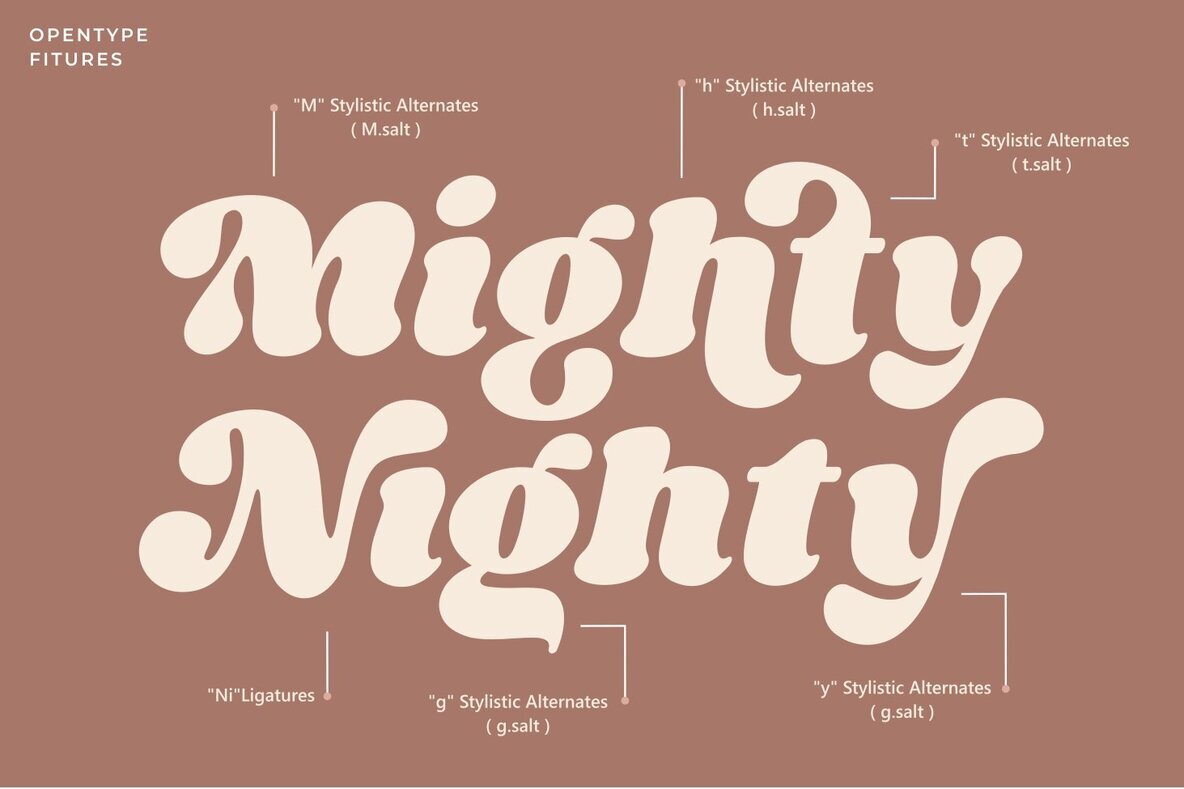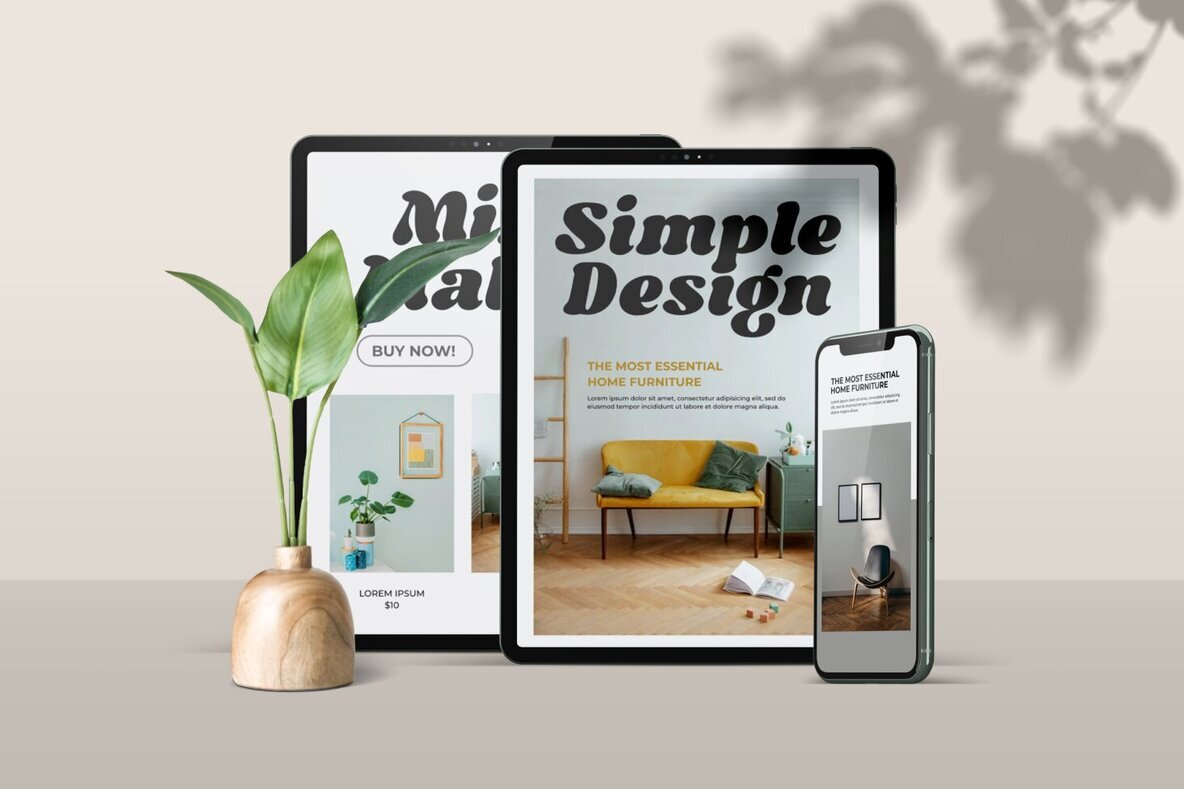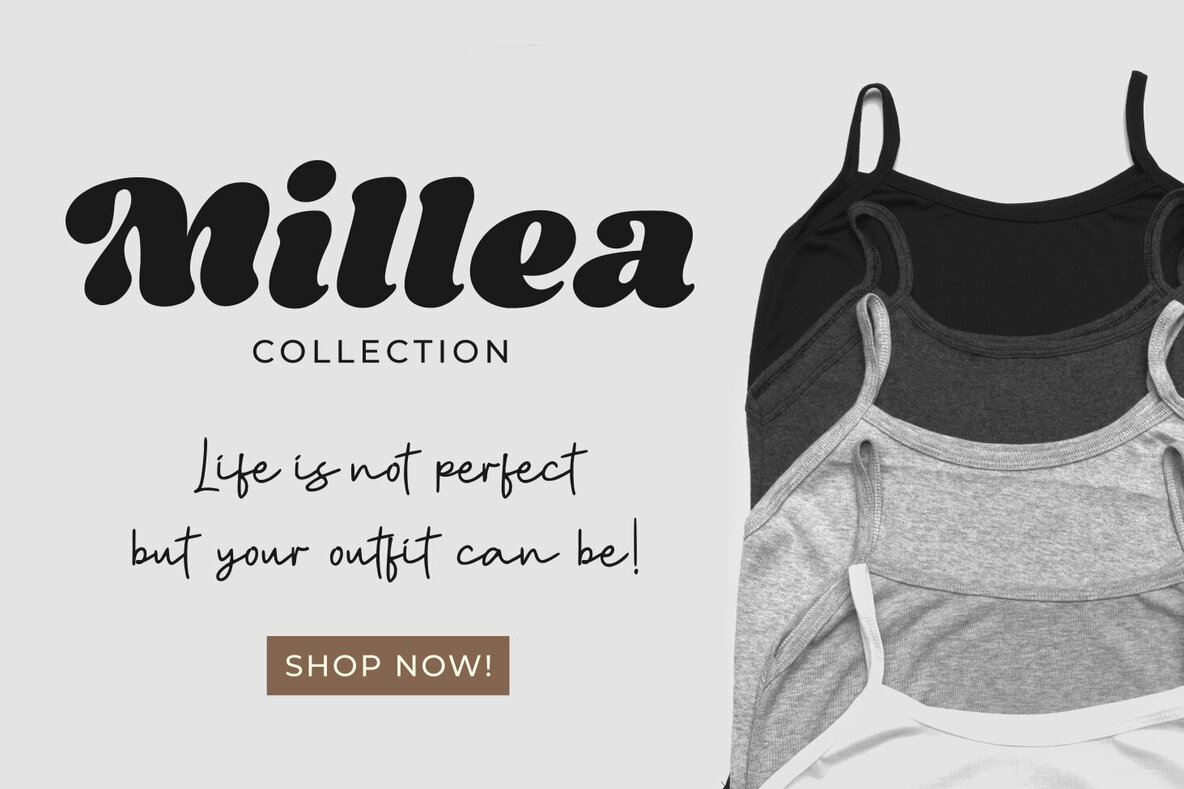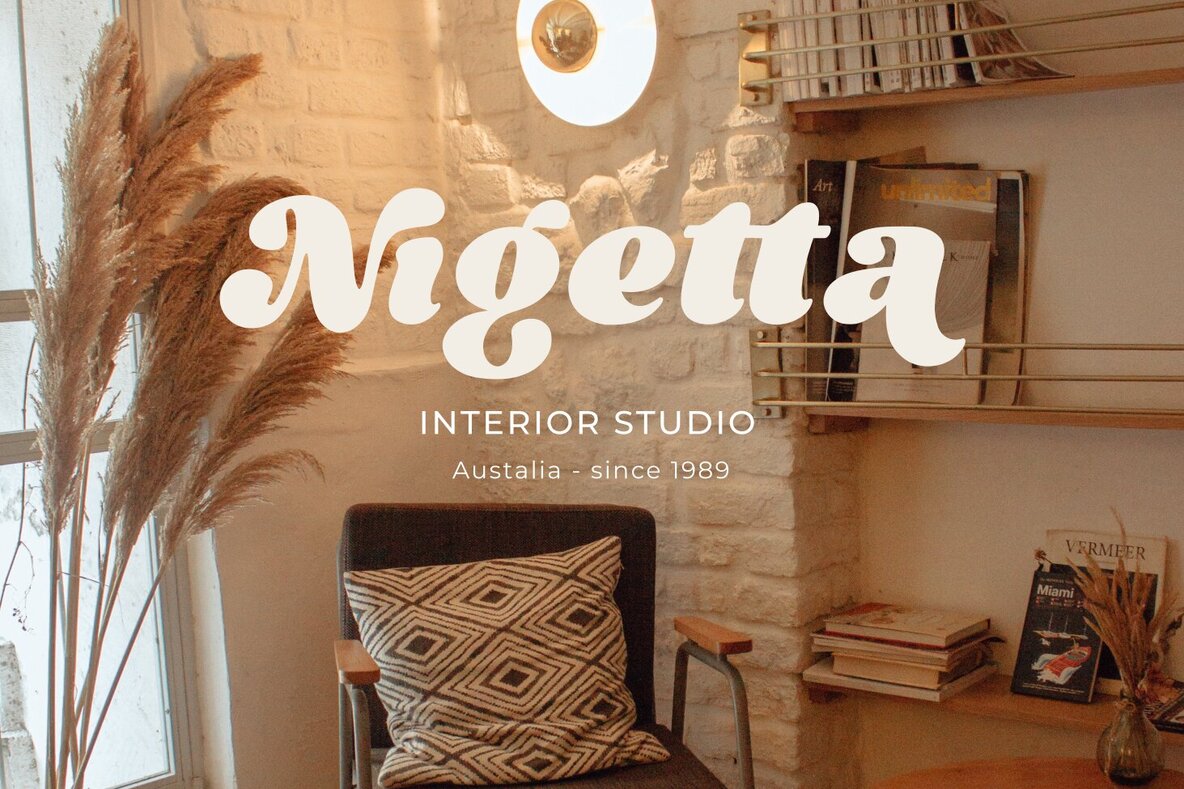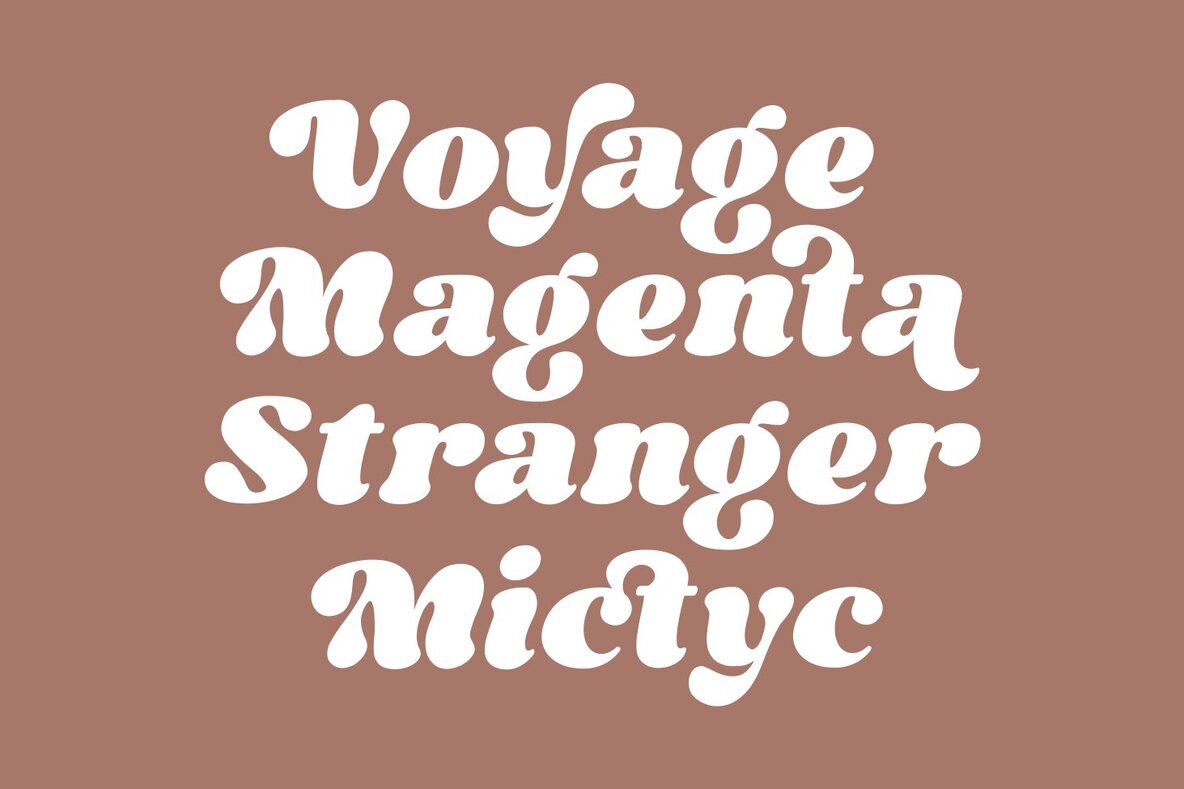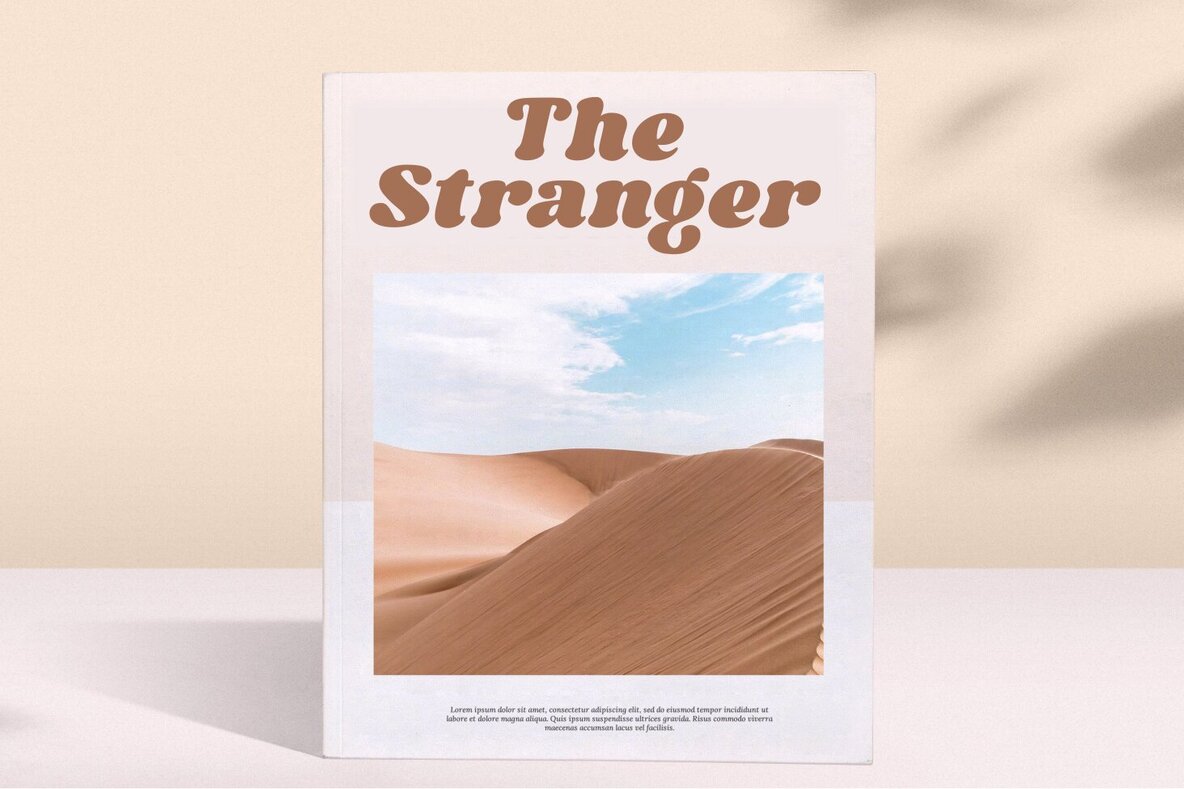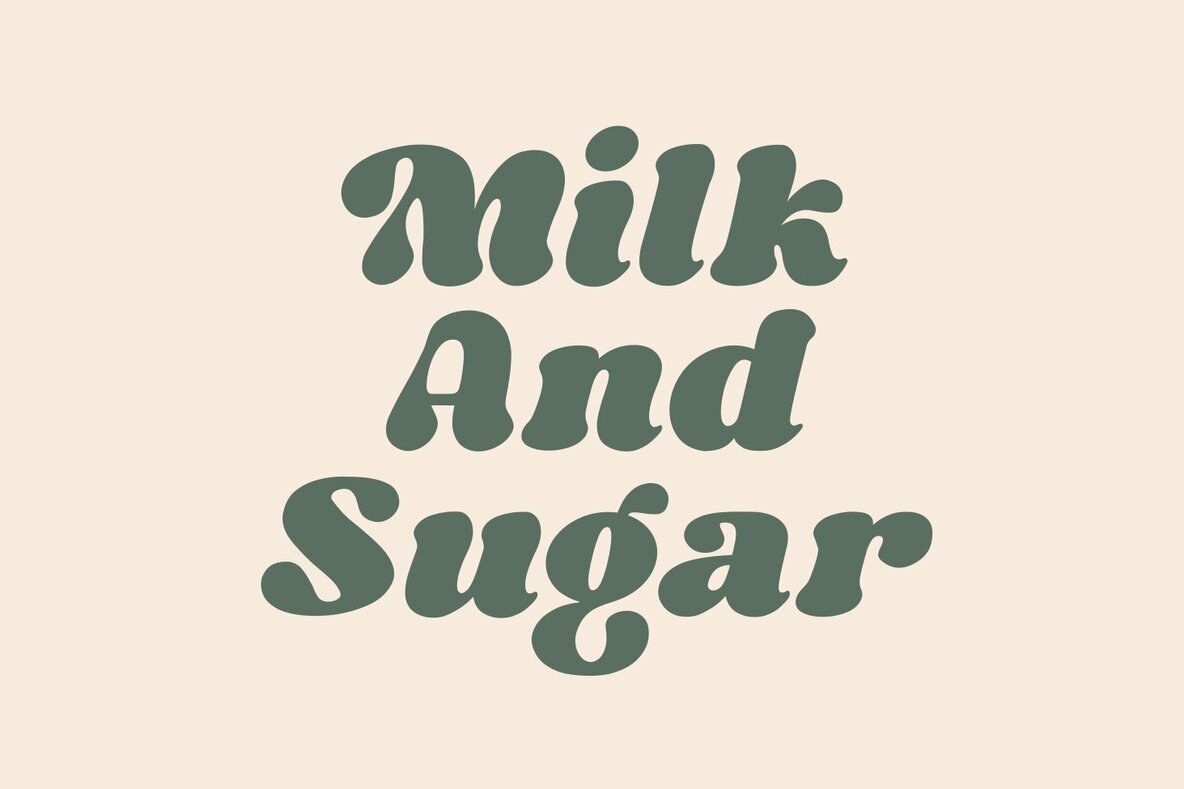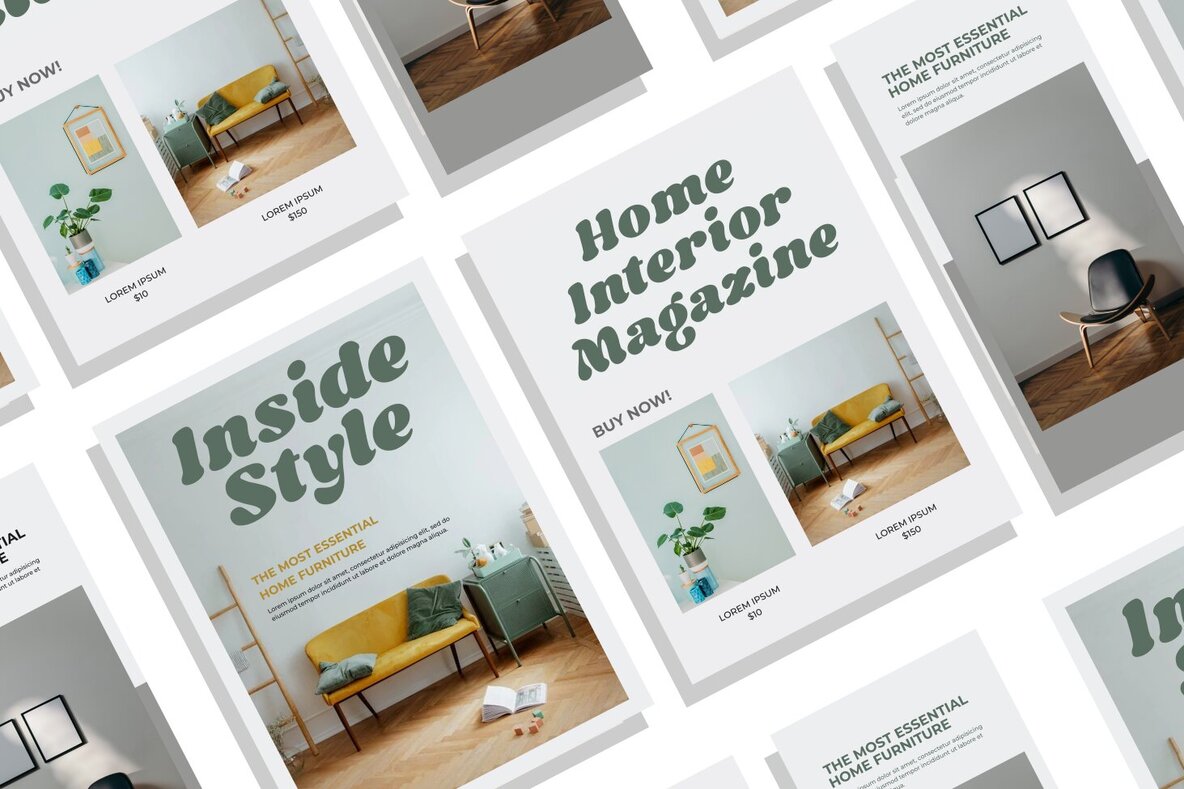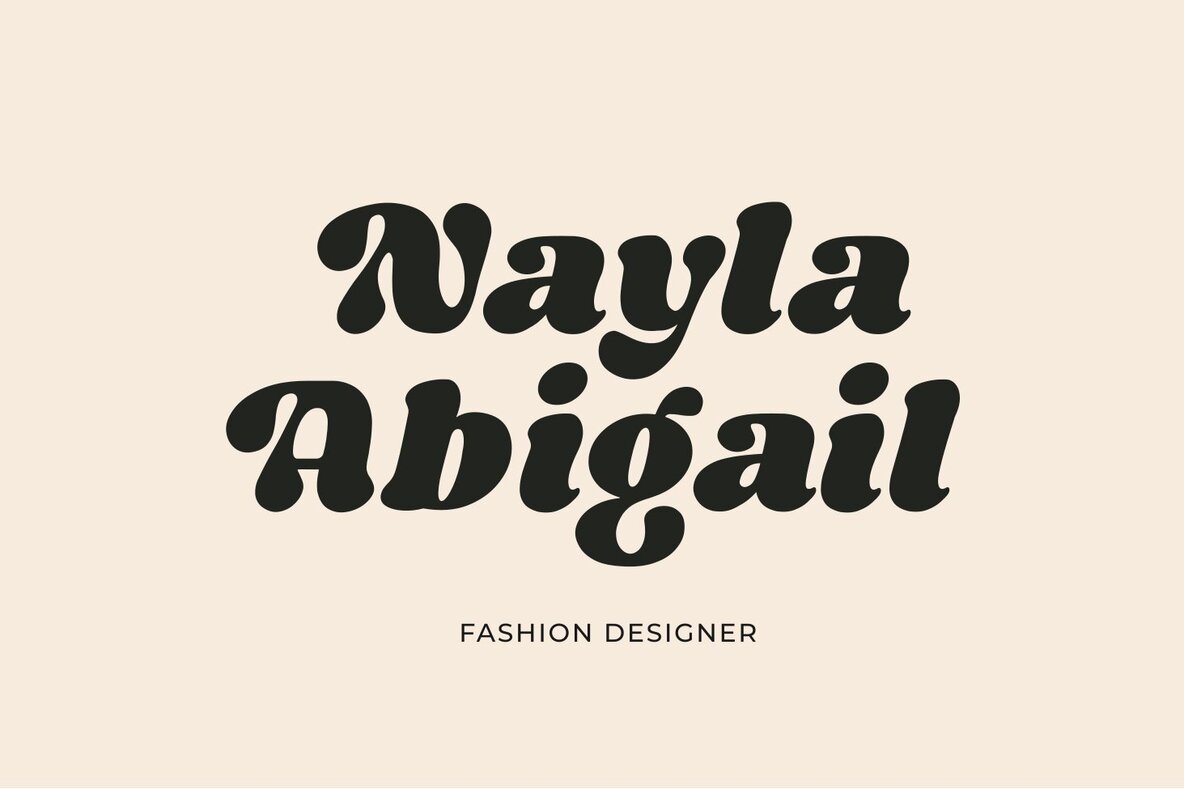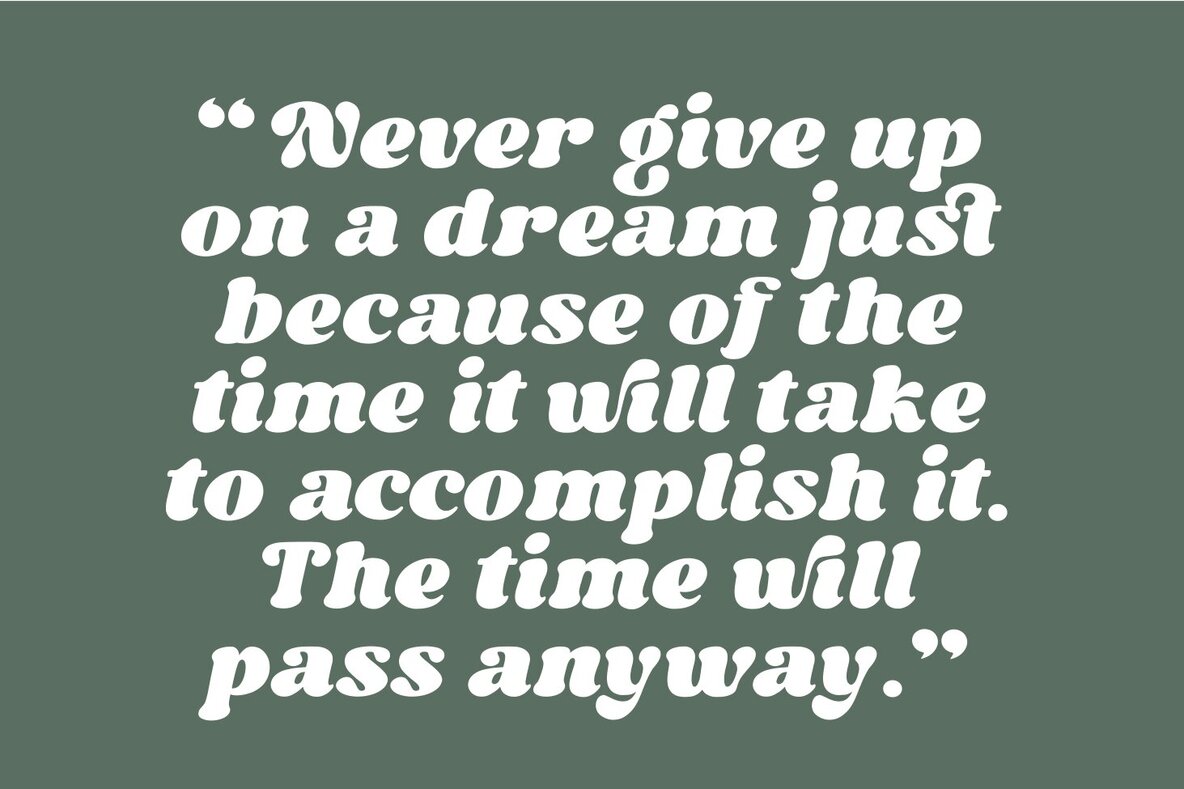
Night Michy Font
Night Michy
Night Michy is a bold serif font that combines vintage styling with modern appeal. Its strong character and soft features make it both clear and bold, perfect for a variety of design applications.Night Michy: Vintage Style Serif with Strong Character